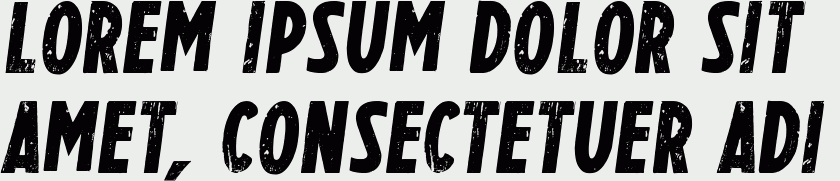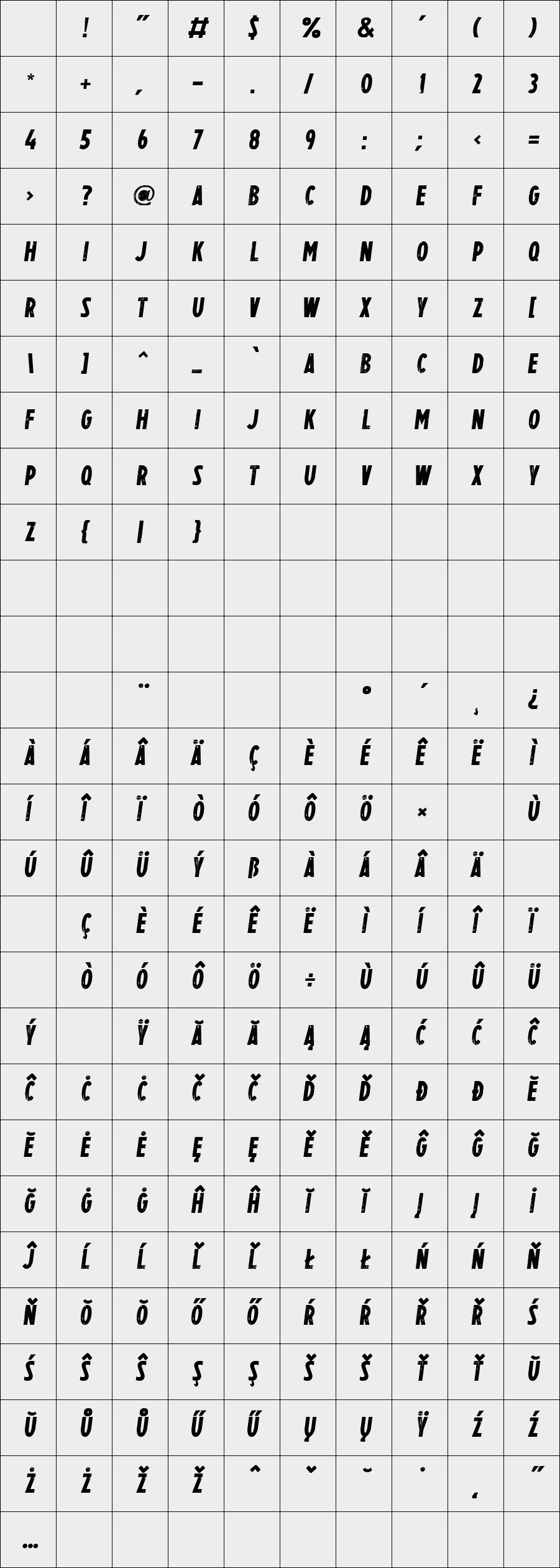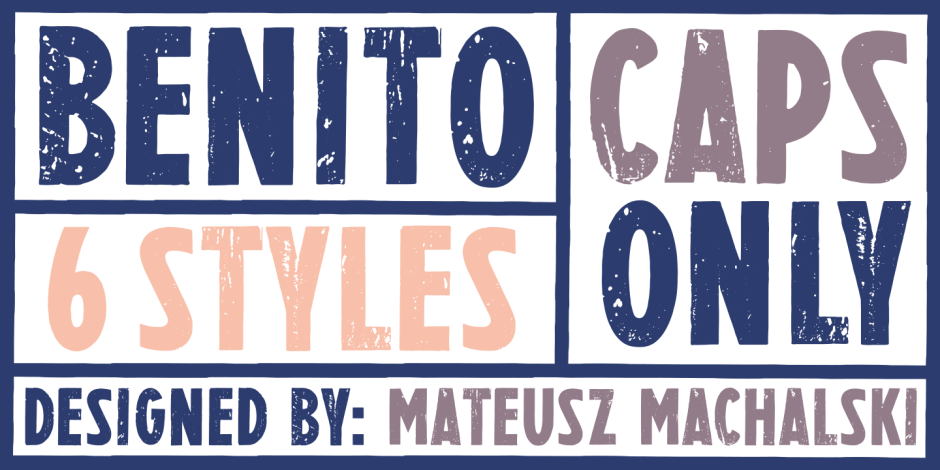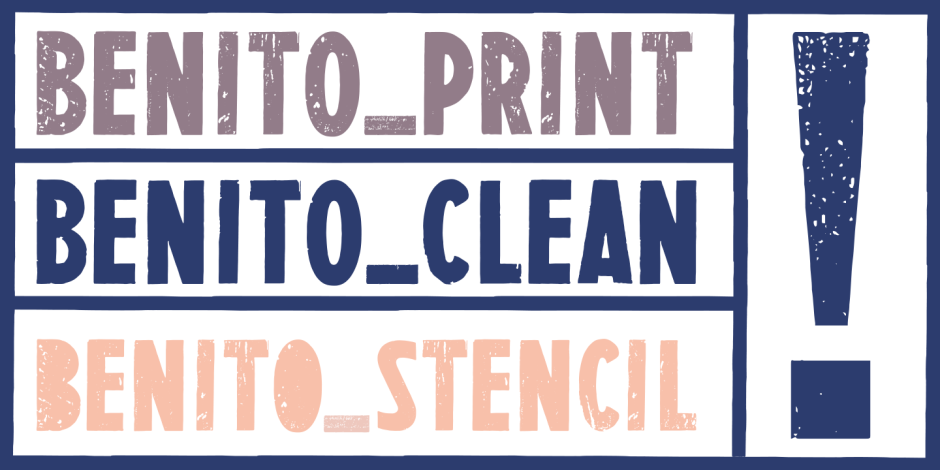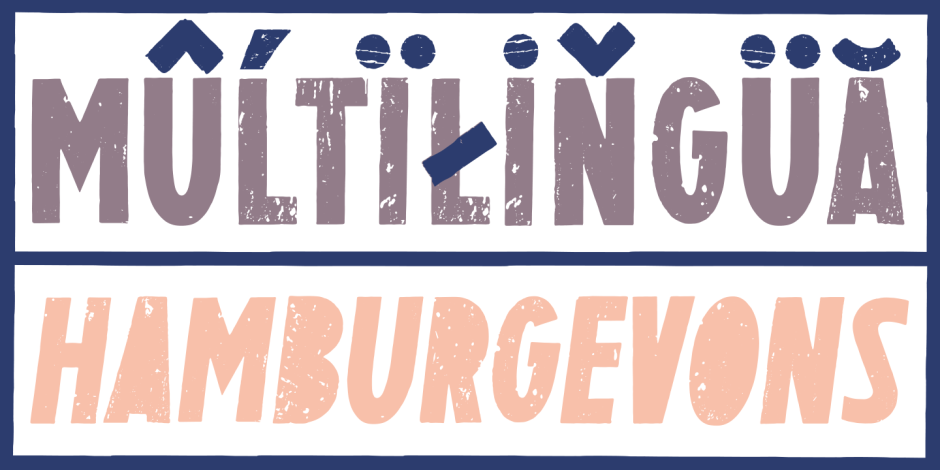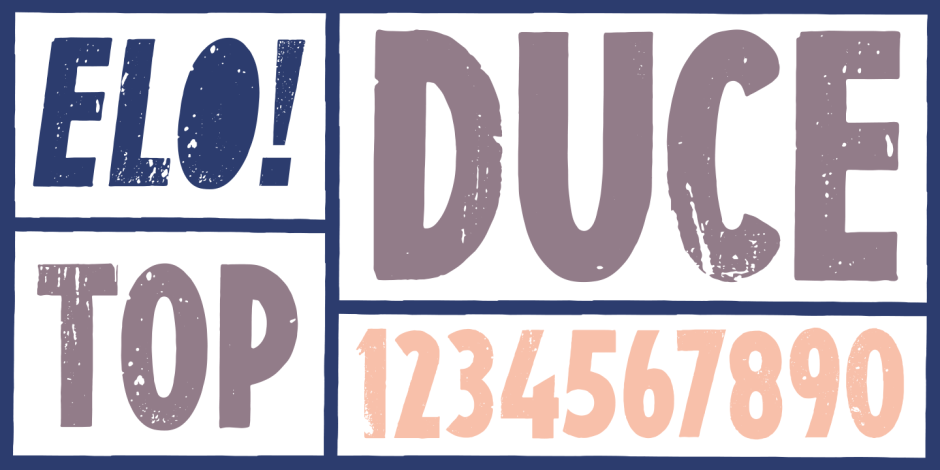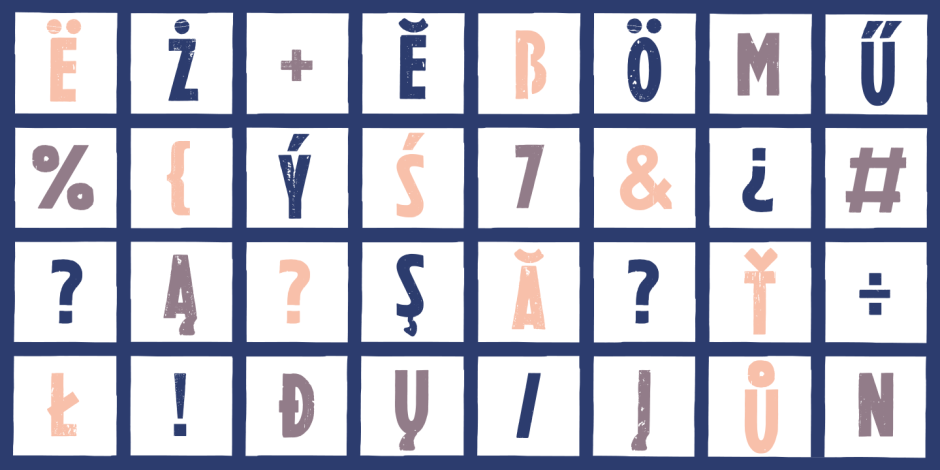
BENITO
/ BENITO Print italic
Benito is proportional, geometric woodtype.
This typeface family contains 6 styles: Print, Stencil, Clean + italics.
Designer: BORUTTA